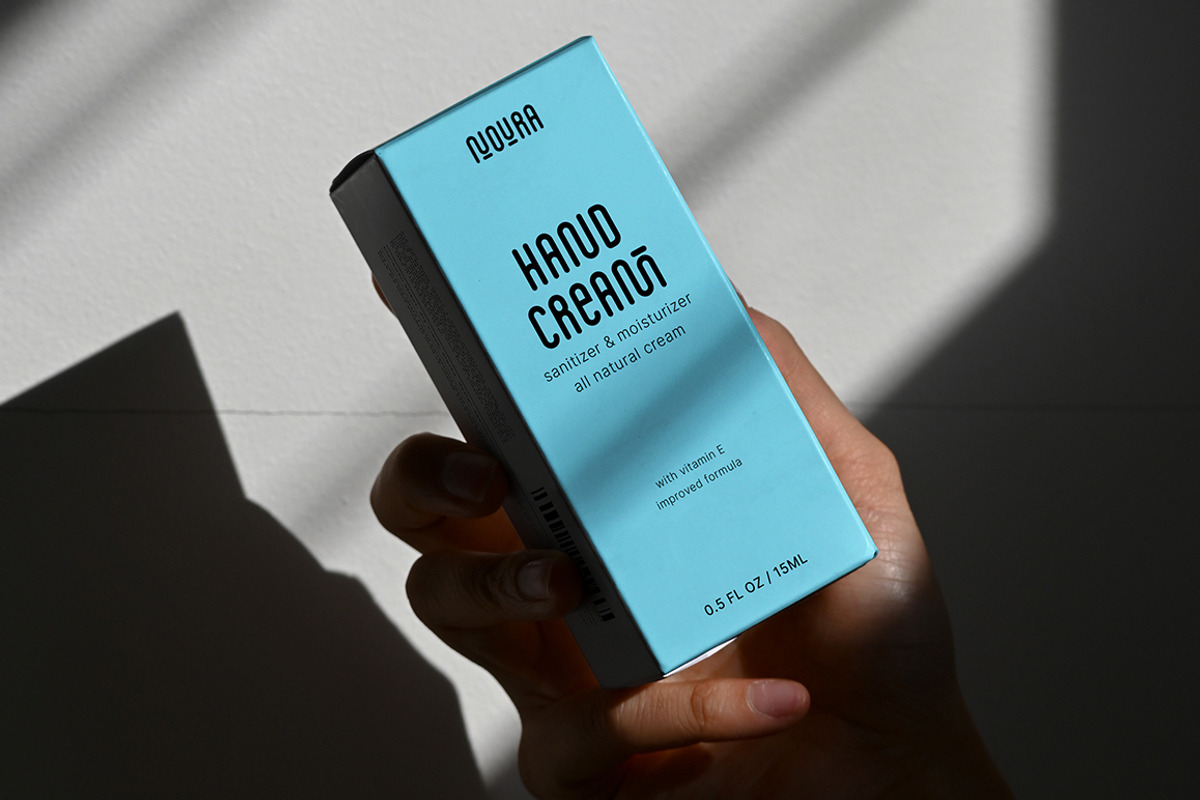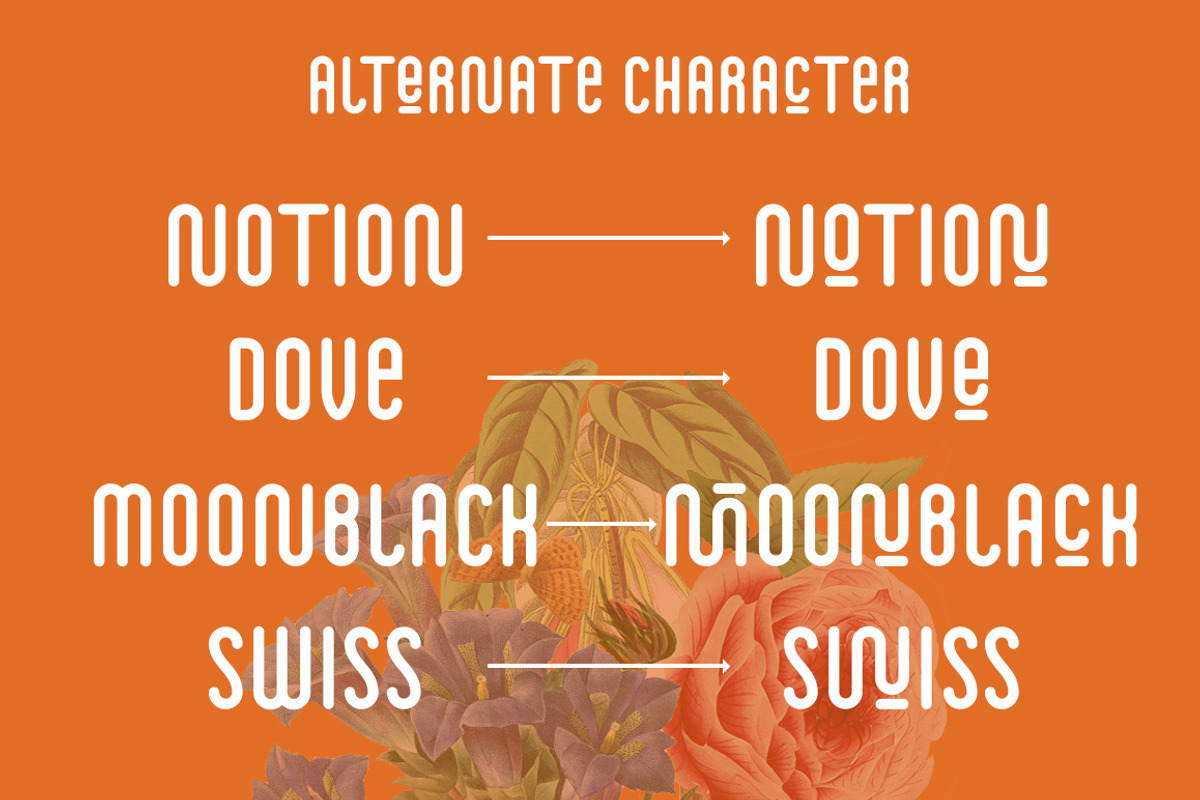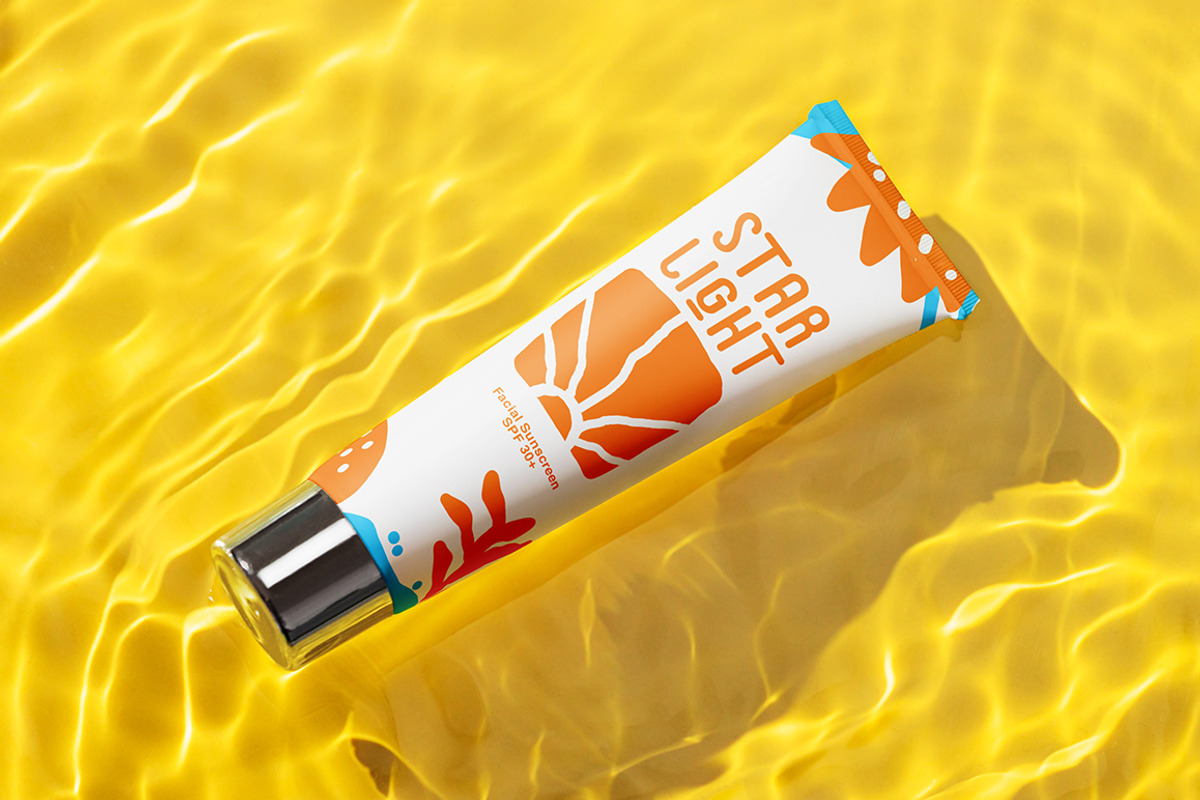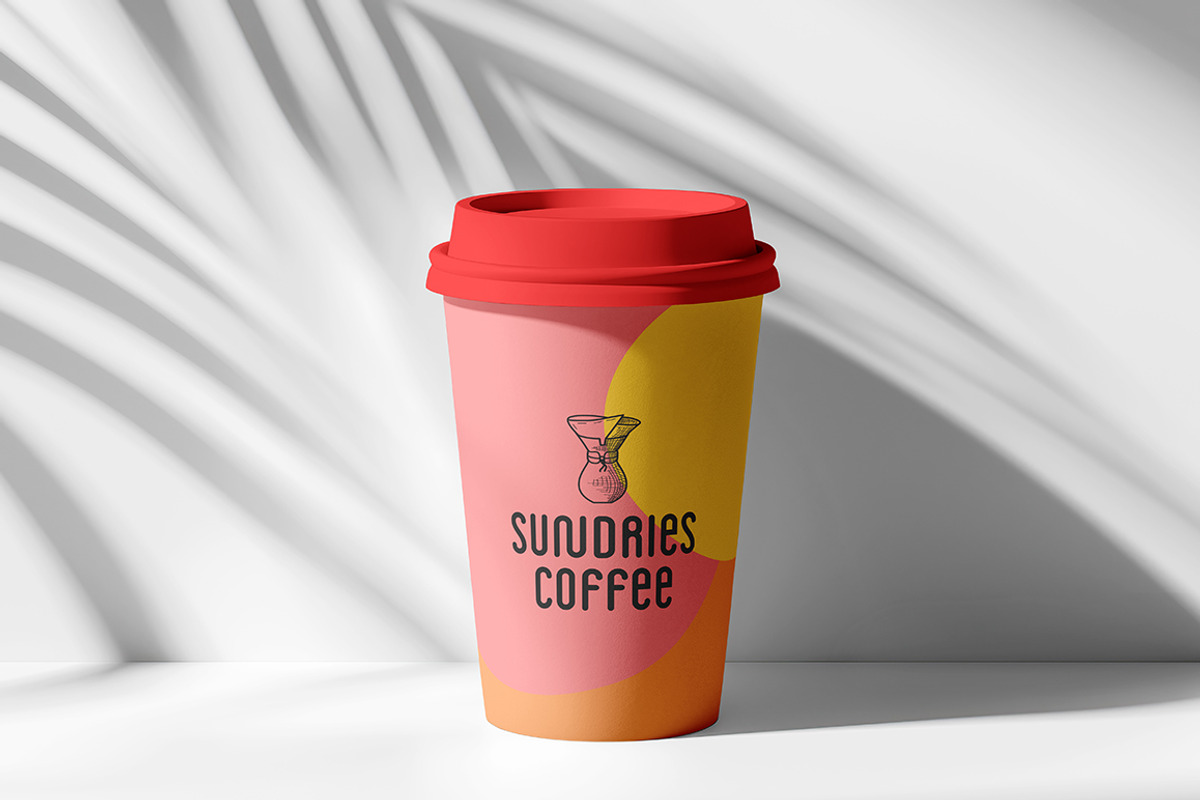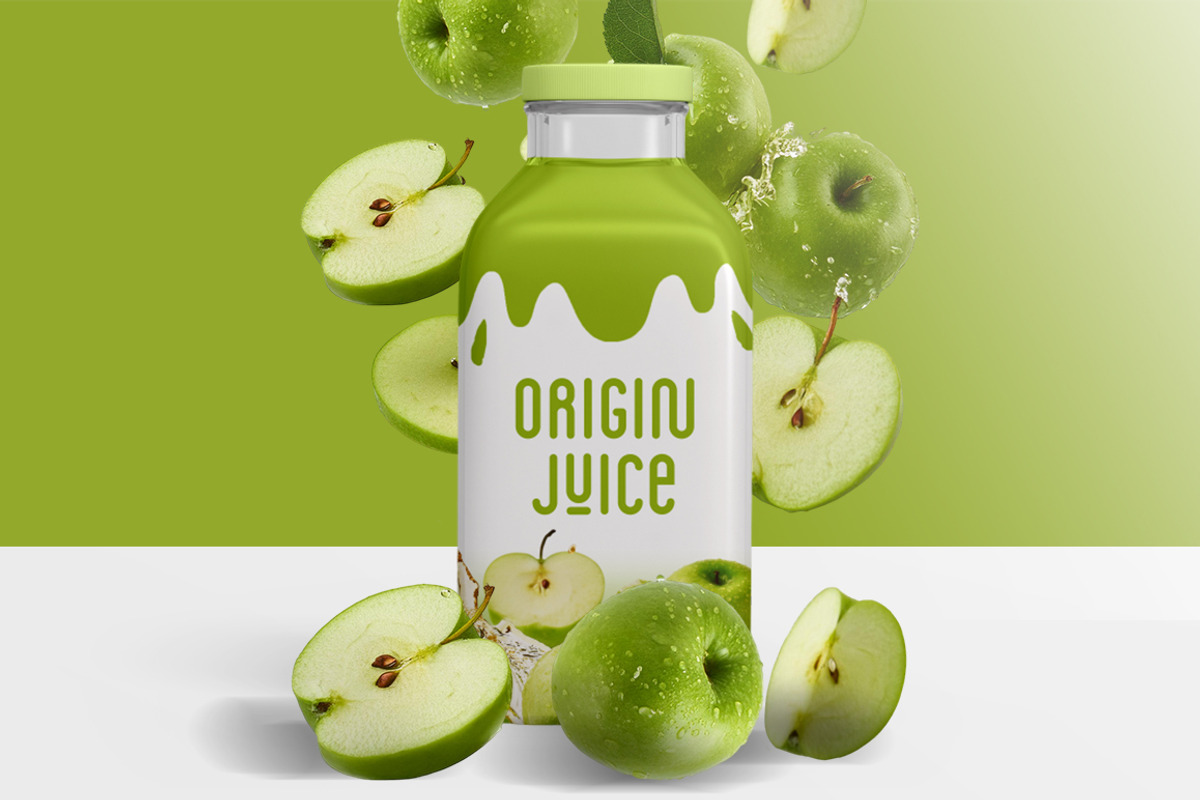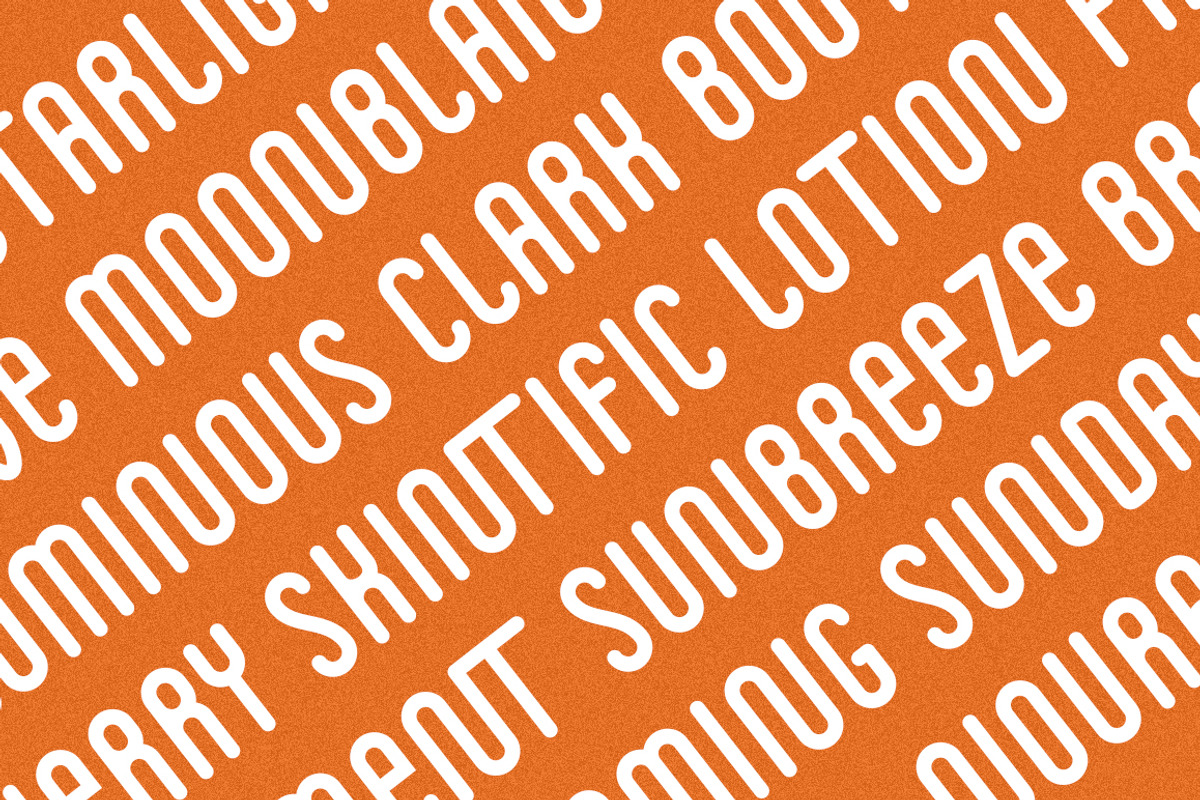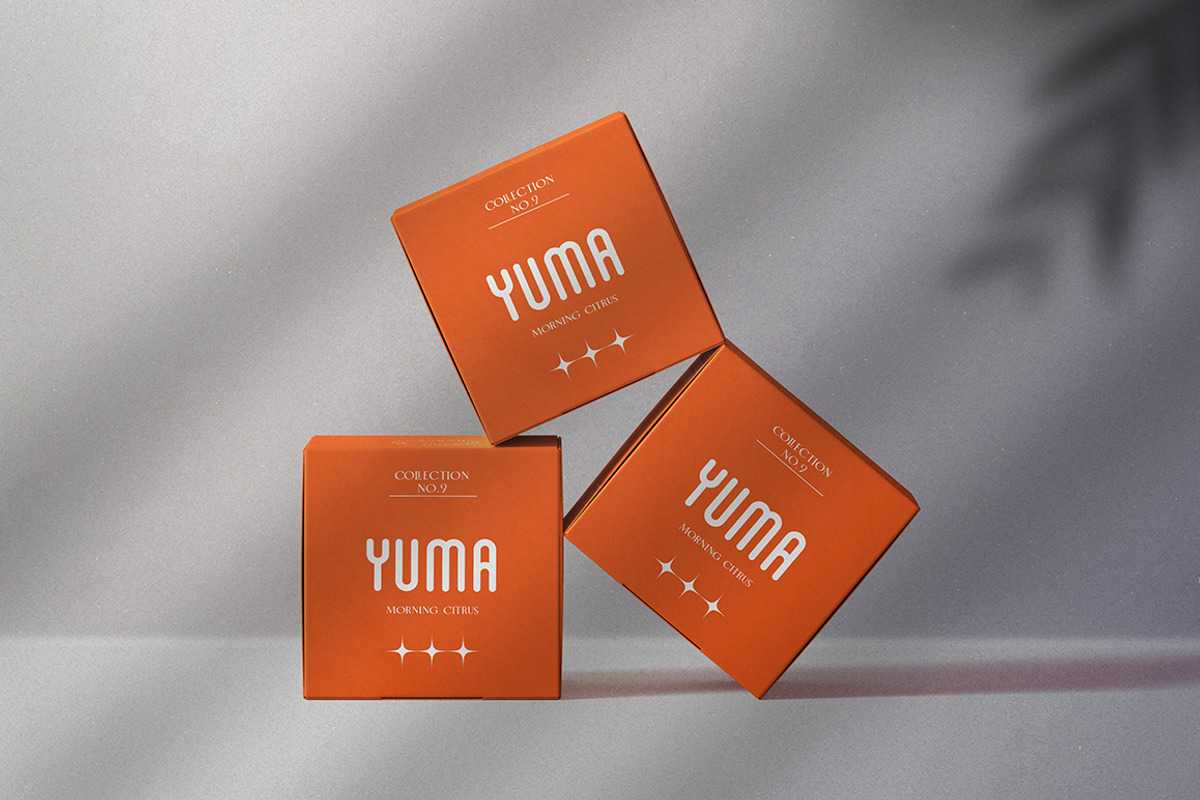
Summersun - Monoline Bold Font
Introducing Summersun, a versatile monoline bold font that seamlessly blends elegance and strength. Designed to adapt to a wide range of creative projects, Summersun stands out with its unique ability to convey beauty and boldness in equal measure.
With features like ligatures and alternate characters, this font offers flexibility, empowering designers to craft distinctive and captivating designs effortlessly. Whether for sophisticated branding or striking headlines, Summersun ensures your creations shine with a touch of refinement and robustness.
Summersun - Monoline Bold Font by Angin Studio fits naturally into Branding, posters, packaging, typography.